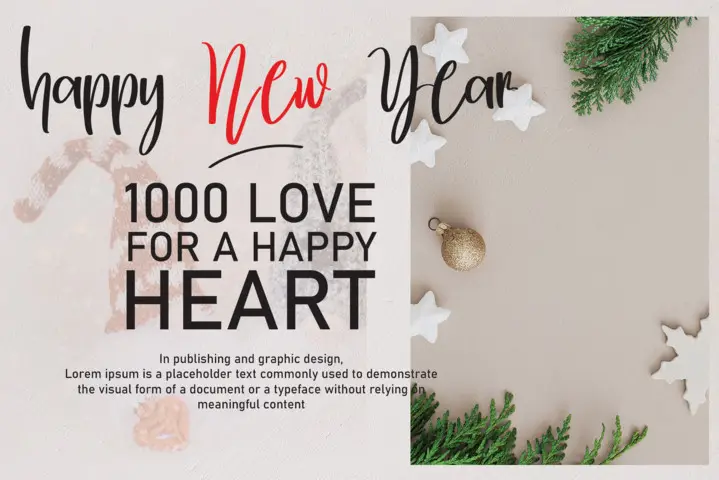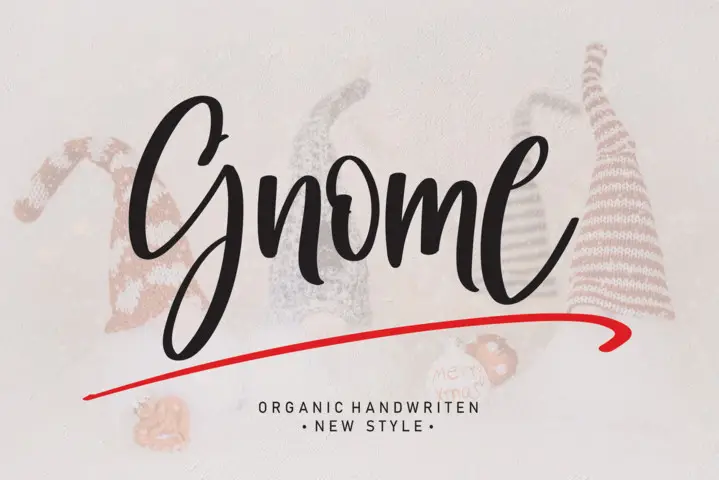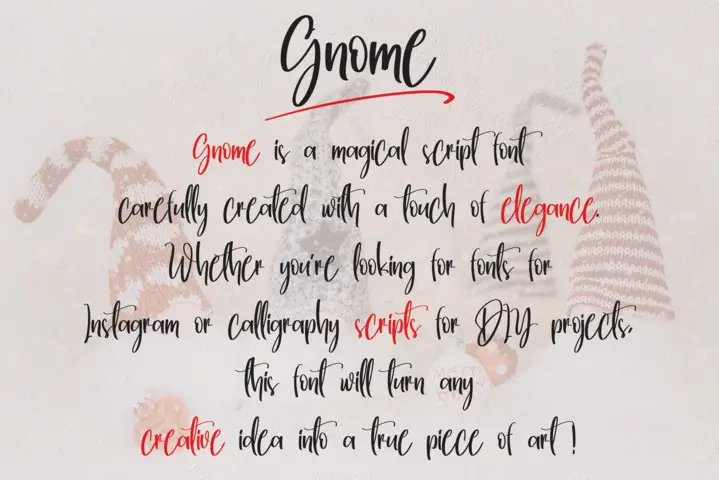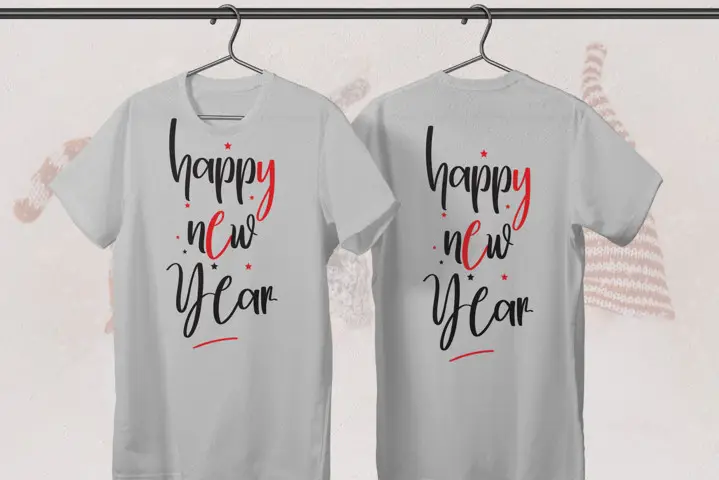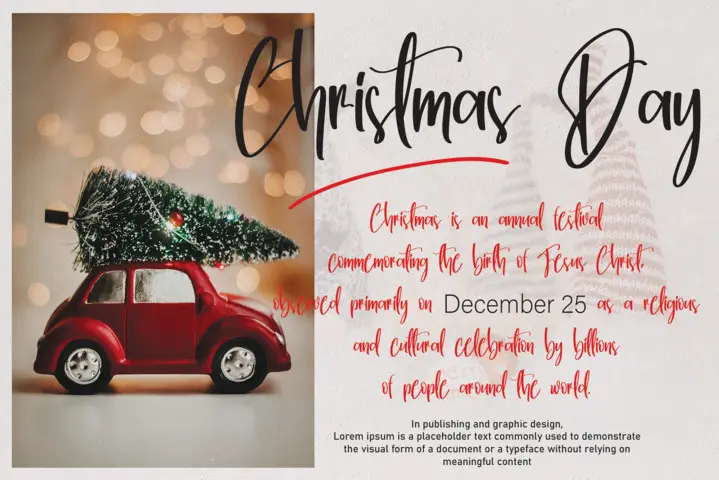
Gnome Script Font
The Gnome Script Font is a beautifully crafted typeface that embodies elegance and charm. With its flowing lines and artistic flair, this font is perfect for a variety of applications, from branding and logos to web design and print materials.
• Stylish script design
Utilize the Gnome Script Font for invitations, greeting cards, or any project that requires a personal touch. Its unique style can elevate your designs and make them stand out.